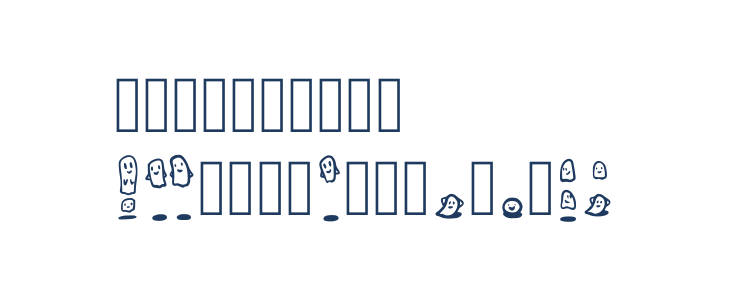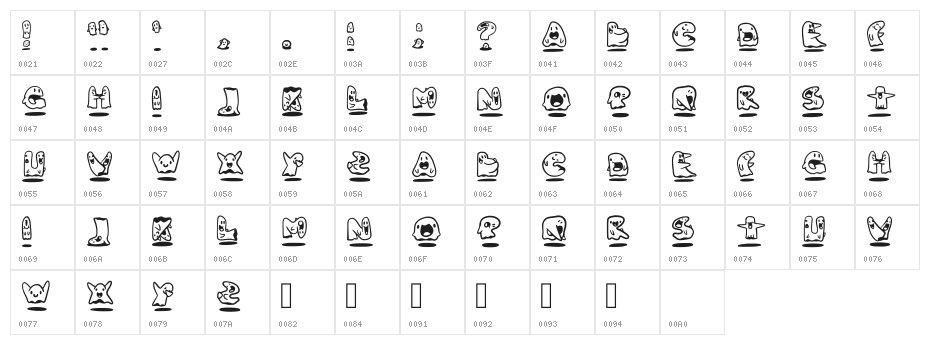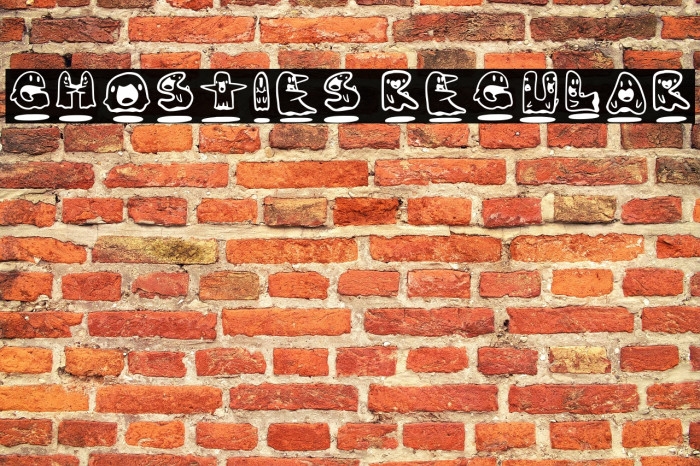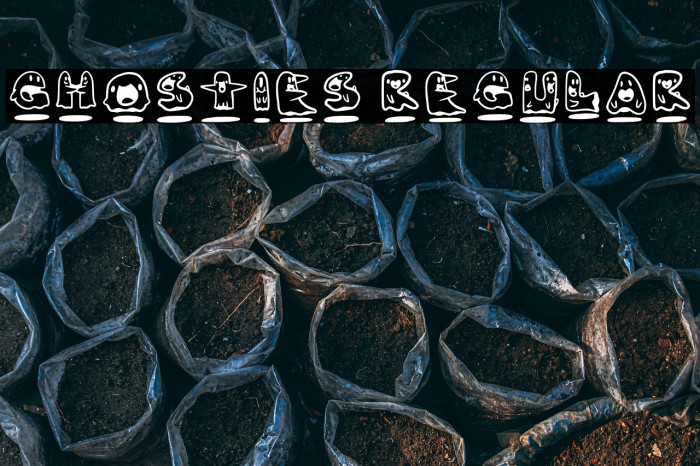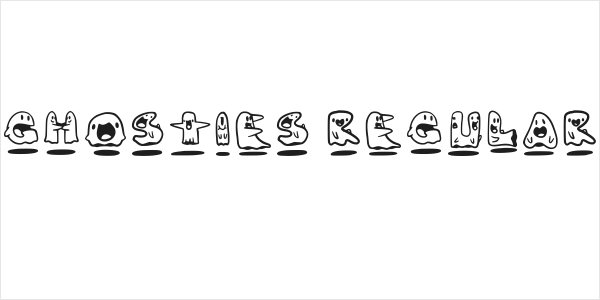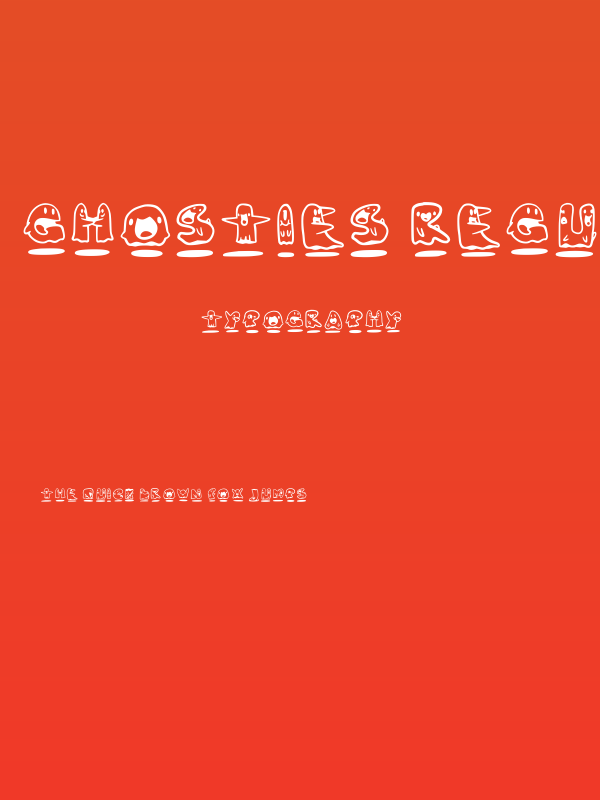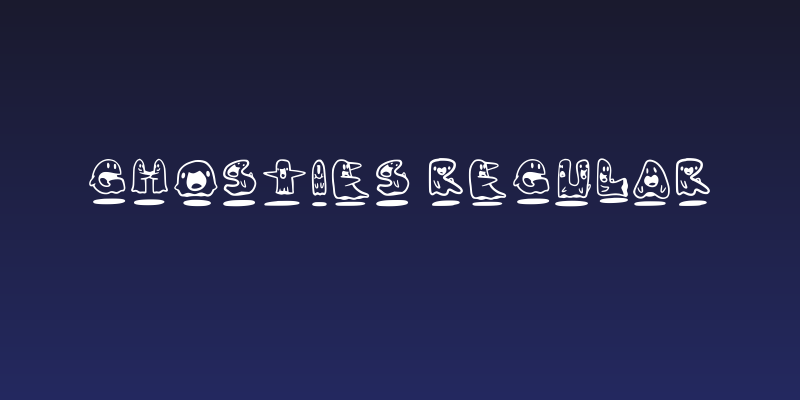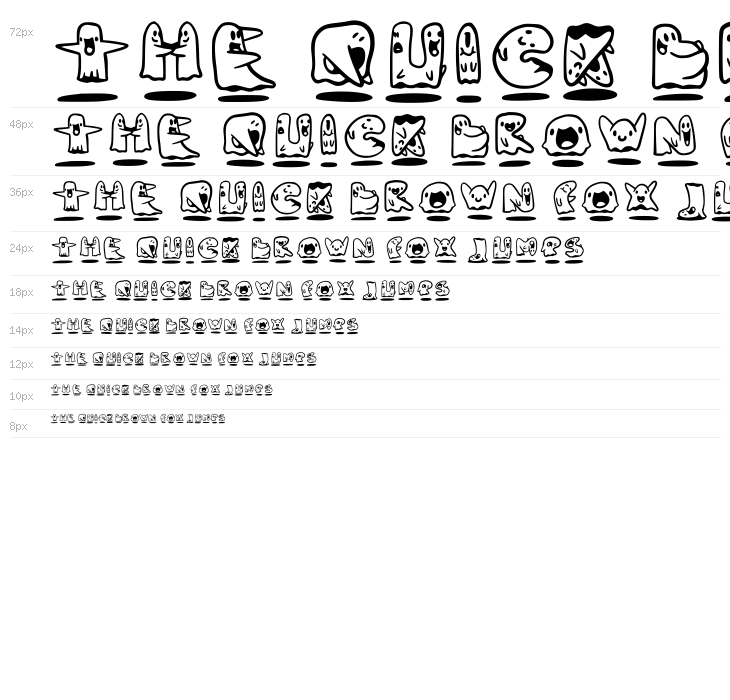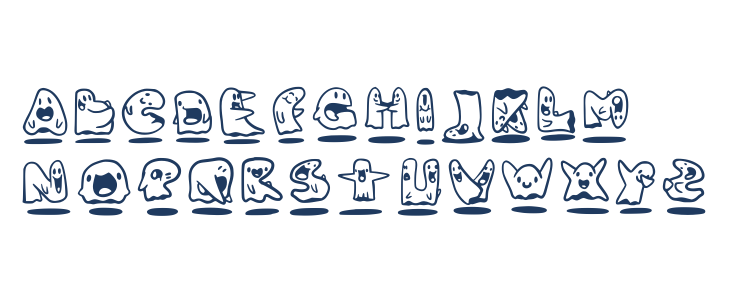
Ghosties Regular Font
Ghosties Regular Description
This playful and whimsical font features characters designed to resemble friendly ghosts, each with unique expressions and forms. The letters are bold and cartoonish, with a hand-drawn aesthetic that adds a sense of fun and creativity. The characters have a consistent width and are slightly rounded, giving them a soft and approachable feel. The font includes both uppercase and lowercase letters, numbers, and a selection of special characters, all maintaining the ghostly theme. The design is perfect for projects that require a lighthearted and spooky touch, such as Halloween-themed materials or children's content.
| Overall Style | Whimsical, Playful |
| Use Case | Headlines, Logos, Themed Events |
| Proposed Projects | Ideal for Halloween decorations, children's books, party invitations, and playful branding. |